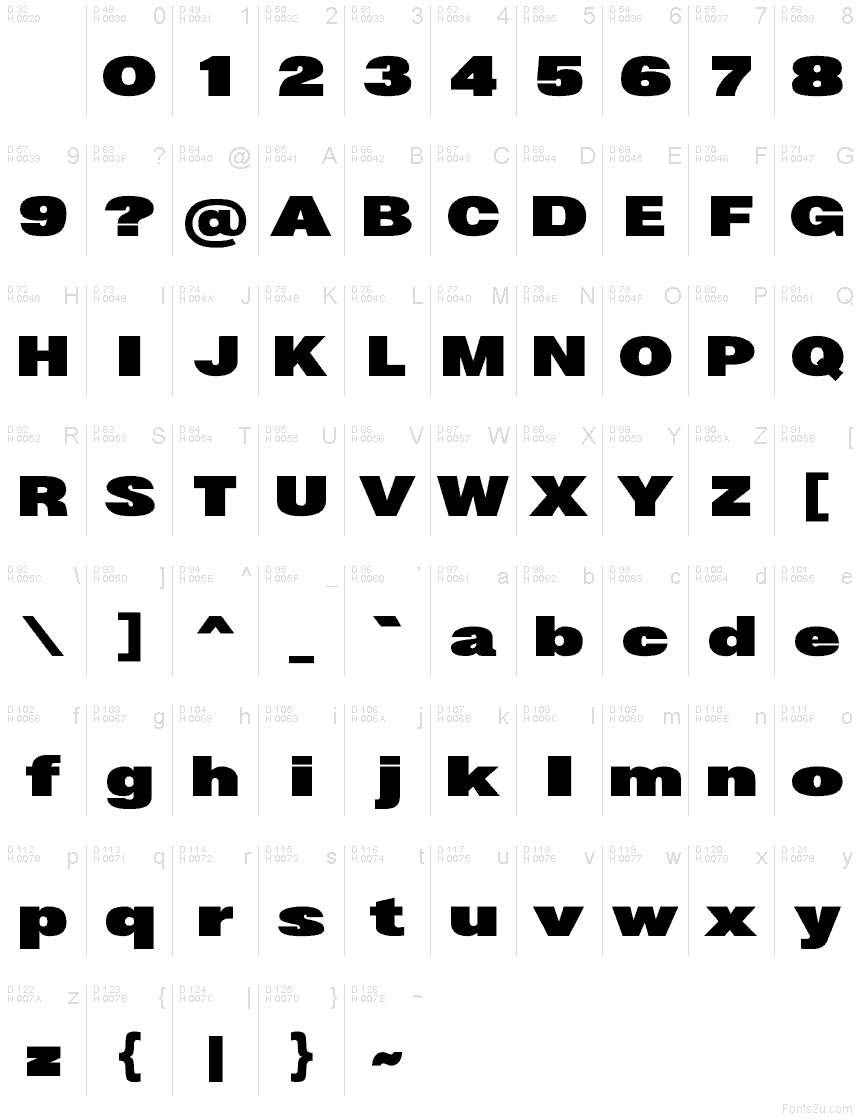
Bathur
Bathur font by 4RM Font is a bold, expanded sans serif typeface inspired by Brutalism design. Its geometric structure and stable presence create a modernist aesthetic with clean lines and authenticity. The balanced harmony in its design makes it suitable for retro and brutalism-themed projects where attention to visual beauty is key.